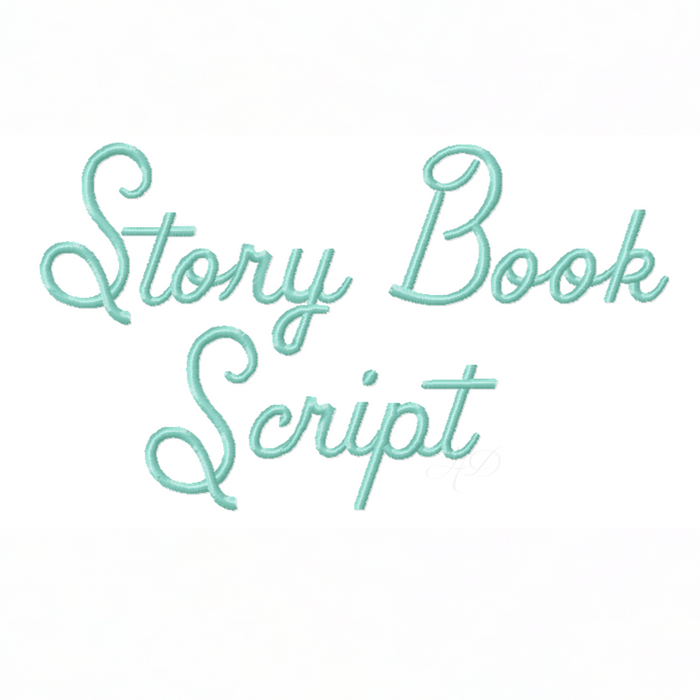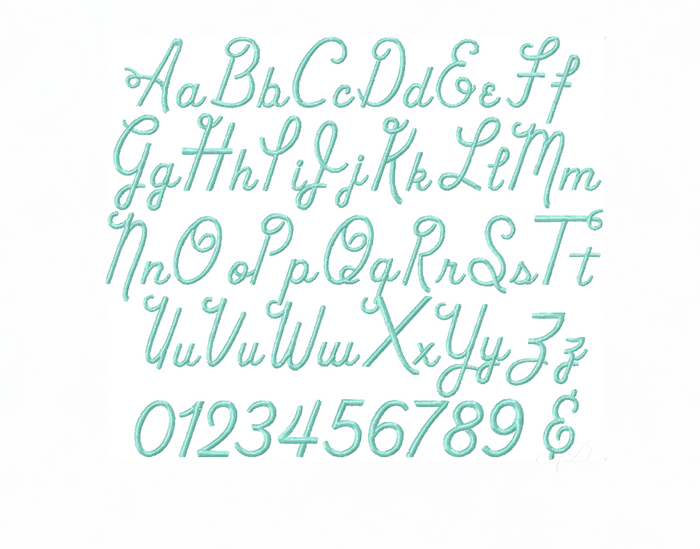
Story Book Font 4x4 - Custom Embroidery Font
Unleash your creativity with the Story Book Font 4x4, an ideal medium-weight satin stitch font designed for personalized embroidery. Perfect for holiday treasures or special projects, this font includes uppercase and lowercase letters (A-Z), numbers (0-9), and the & symbol, making it the ultimate choice for customization.